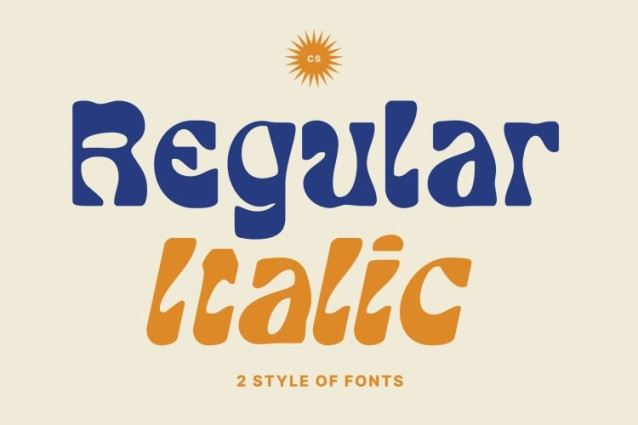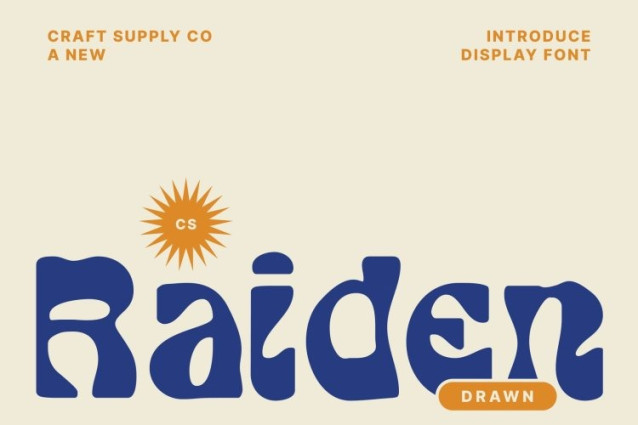
CS Raiden Drawn Font
CS Raiden Drawn Font This is a funky retro sans serif font designed to bring lively character and irresistible style to your visuals. It blends nostalgic charm with expressive modern energy, making every letter feel playful and full of personality. With its stylish curves and funky forms, the font instantly stands out in creative layouts, giving your designs a vibrant and memorable edge.
Decorative & Reverse Contrast for Unique Expression
The standout feature of this font lies in its decorative shapes and reverse contrast curves. This unexpected contrast adds a fresh twist to traditional retro typography, creating a rhythm that feels dynamic, stylish, and undeniably unique.
Hand-Drawn Details for Authentic Texture
Hand-drawn details enhance the charm and authenticity of this font. These subtle imperfections add warmth and texture, giving the font a natural, handcrafted feel. The drawn effect softens the bold structure just enough to create a balanced, artistic look that feels both retro and refreshingly original.
Perfect for Branding, Retro Posters, and Music Visuals
This font shines in branding, poster design, and creative visuals especially those inspired by retro themes or musical culture. Its lively style makes it ideal for album covers, event graphics, festival identities, and playful branding explorations. Whether you’re elevating a nostalgic project or building a fresh creative concept.